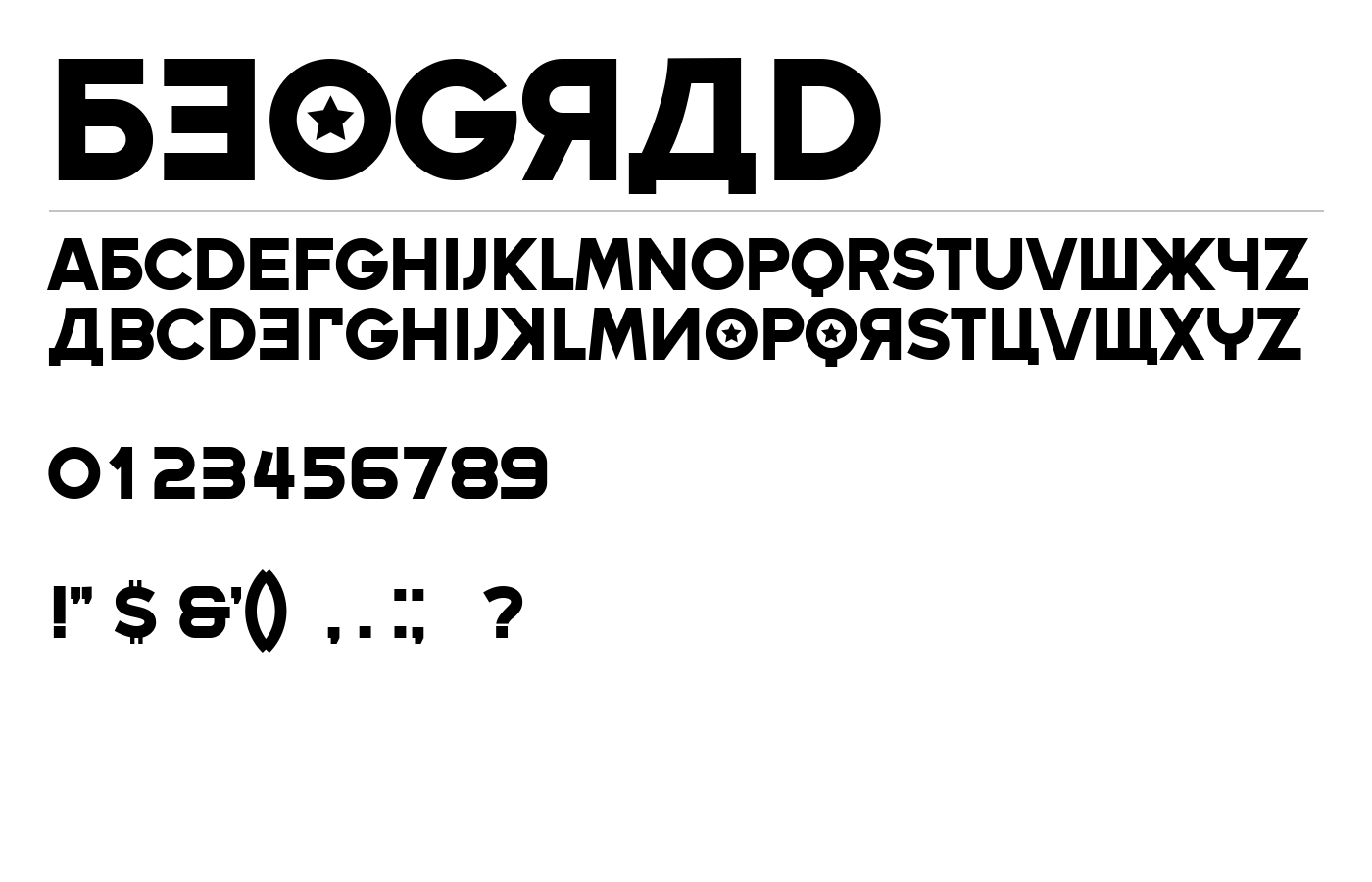
Beograd is a bold, geometric sans serif font with a strong, modern presence and a distinctive Eastern European flair. Its wide, blocky letterforms feature sharp angles and unique details like star-shaped counters, making it ideal for eye-catching headlines, logos, and branding that demand a robust, urban, and contemporary feel. This font works best in large sizes where its striking shapes and cultural character can truly stand out.
Beograd Font
About Beograd Font
| Font family | Beograd Font |